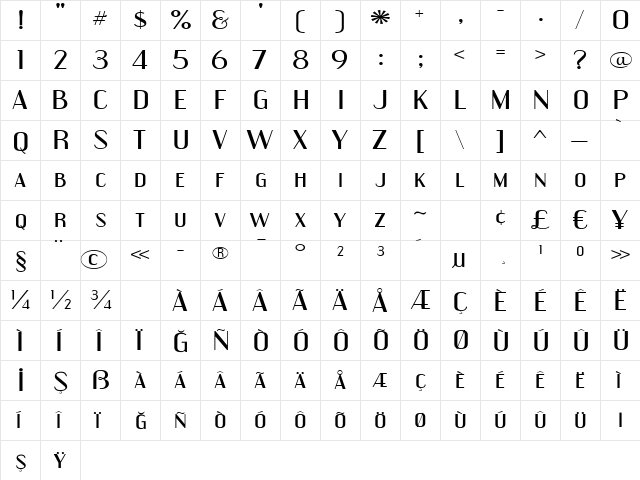
TrSah Engebrechtre Expanded Regular
Design Context for TrSah Engebrechtre Expanded Typeface
TrSah Engebrechtre Expanded takes a measured approach to typography — its balanced proportions and neutral character make it a reliable workhorse for both digital and print work.